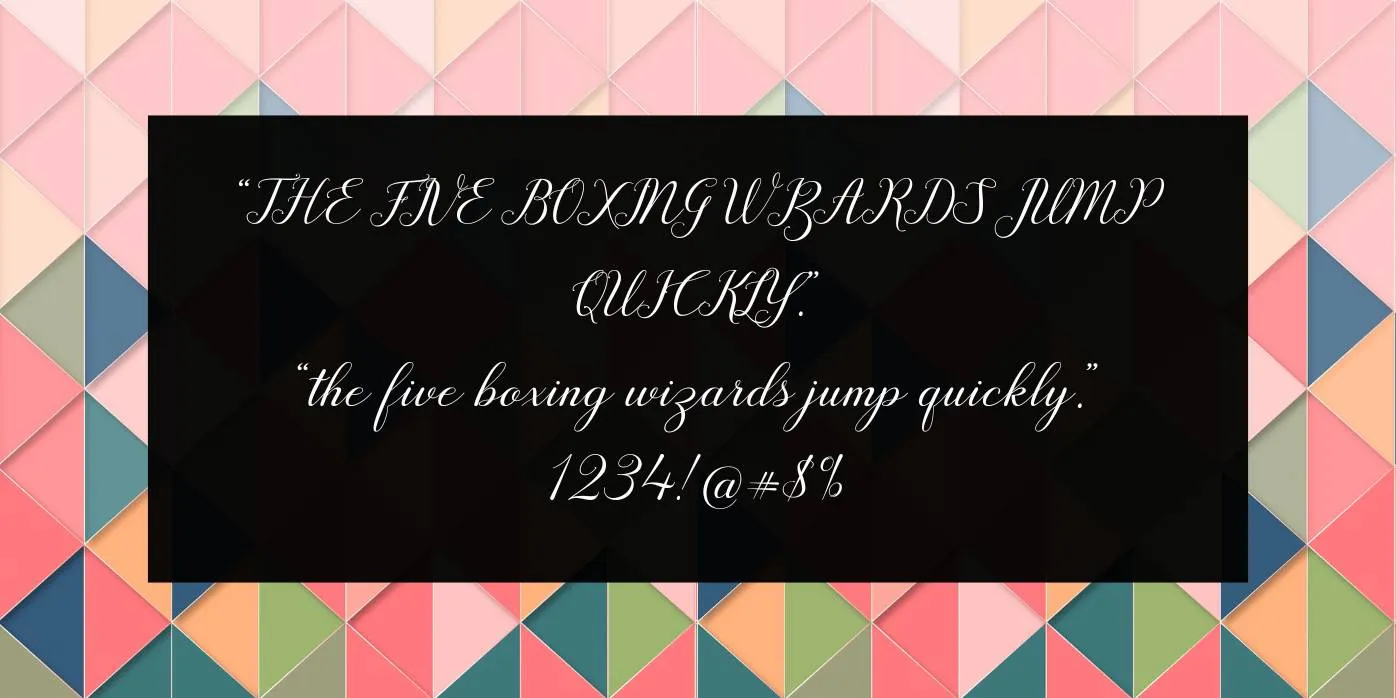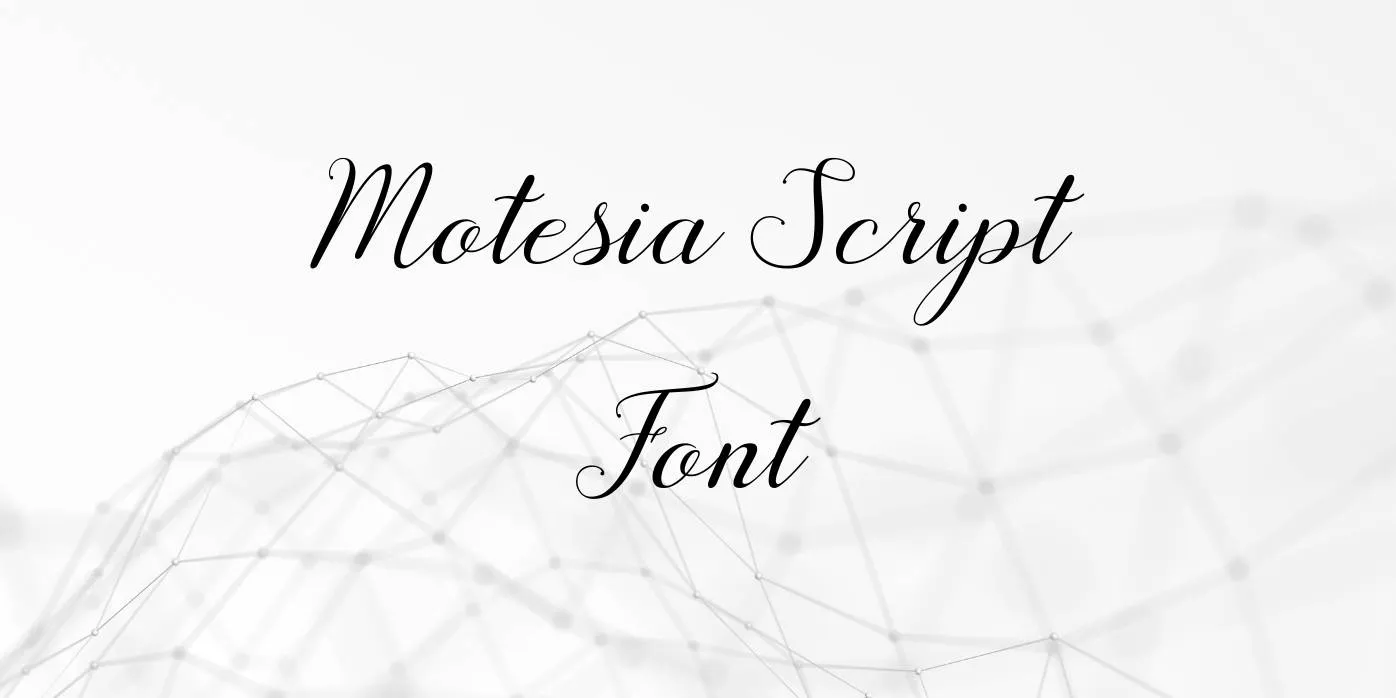
Motesia Script Font
Motesia Script Font is a calligraphy typeface that was designed by Aqeela Studio. The characters of this typeface are amazing because of some important reasons. Some of these reasons are stylish, readability, attractiveness, and a lot more. This typeface supports an online tool that is called a generator tool, which works for converting any font into this simplest font without downloading the zip file.